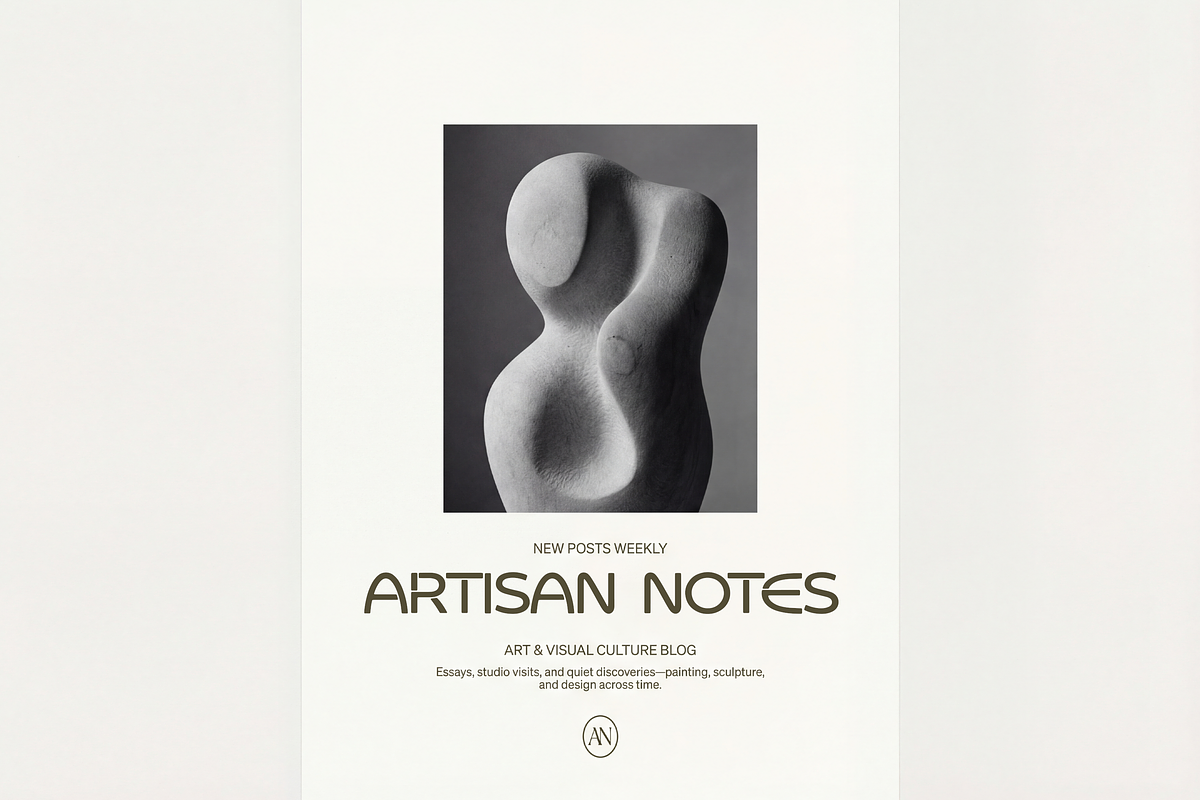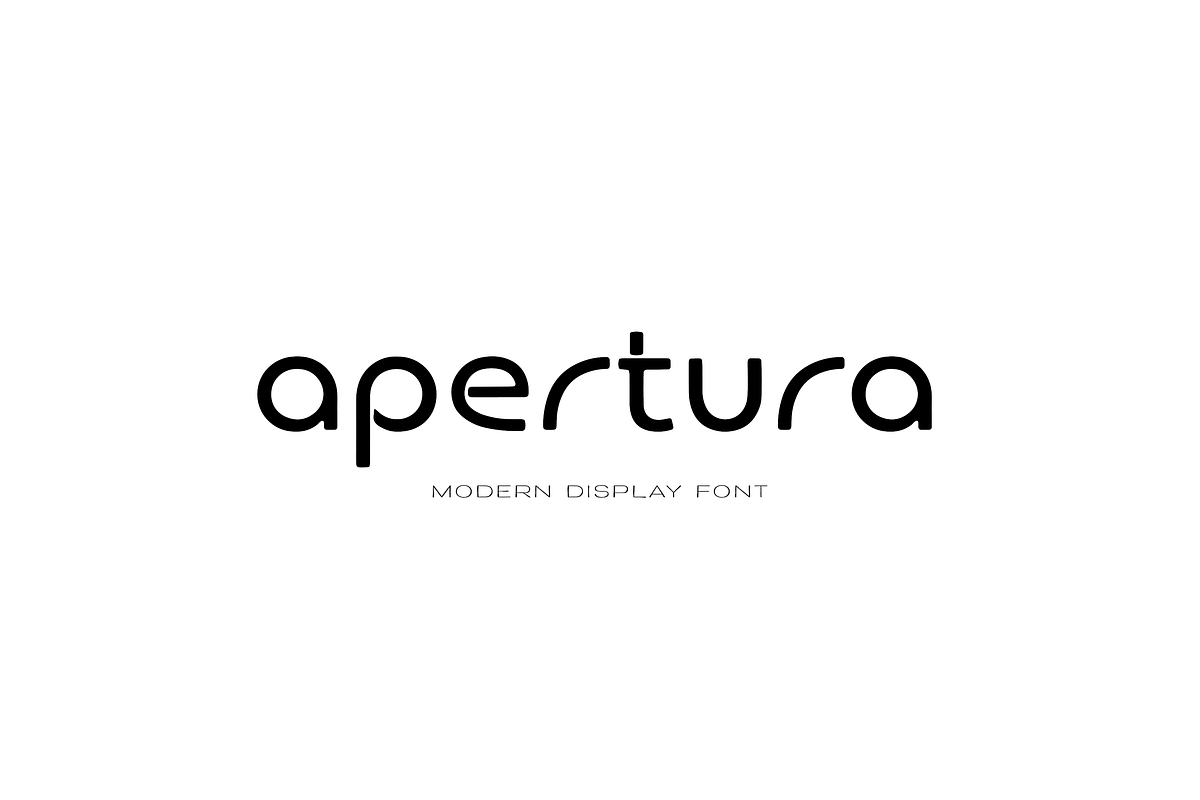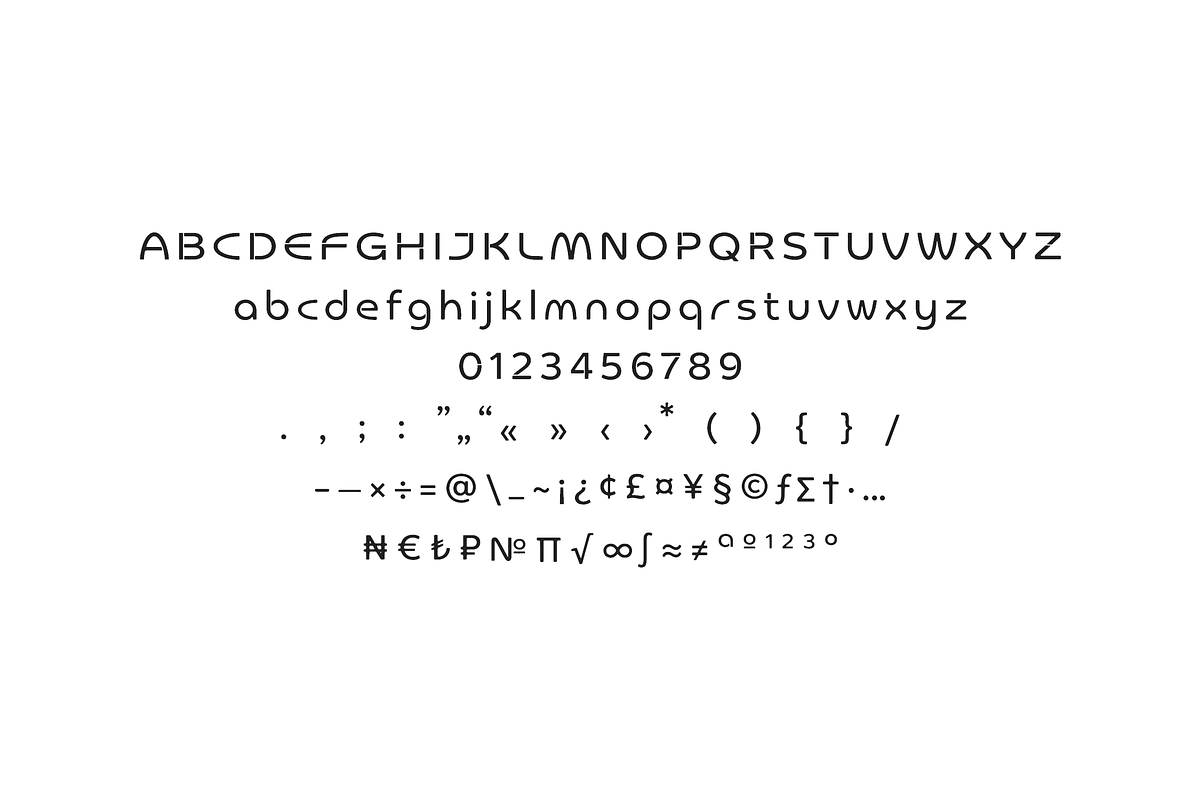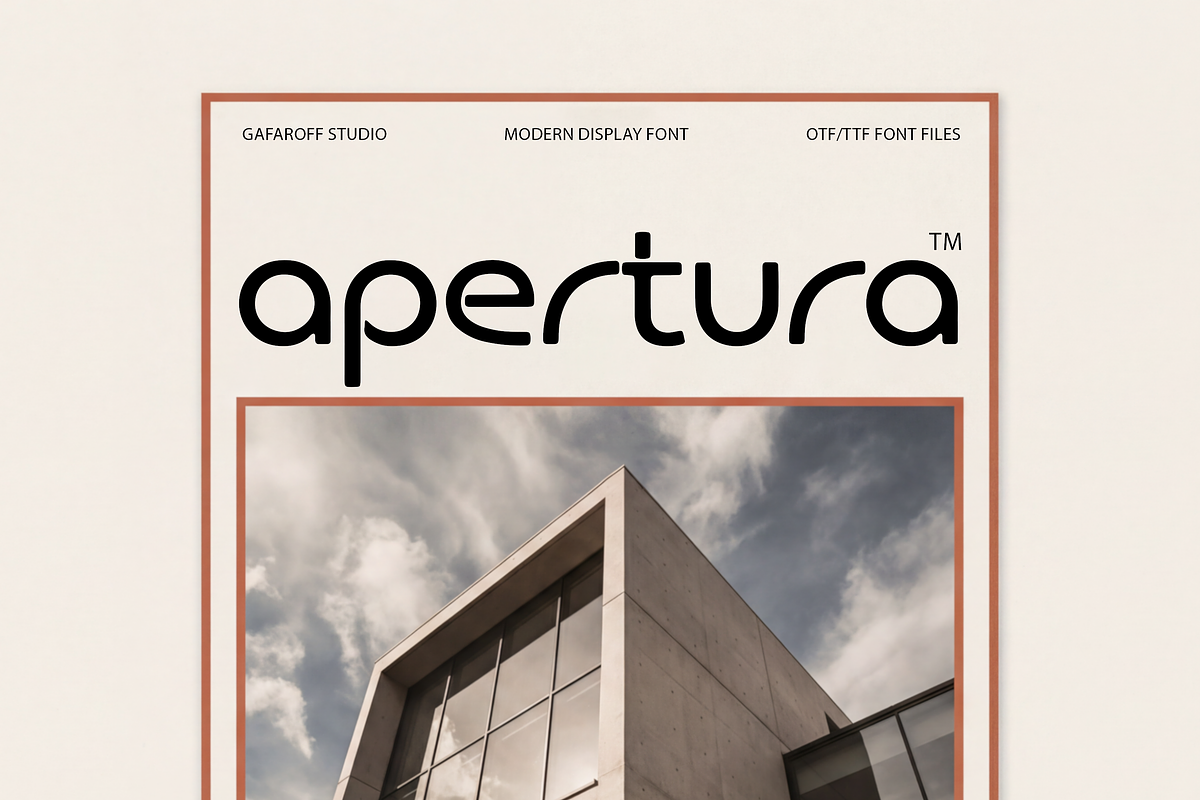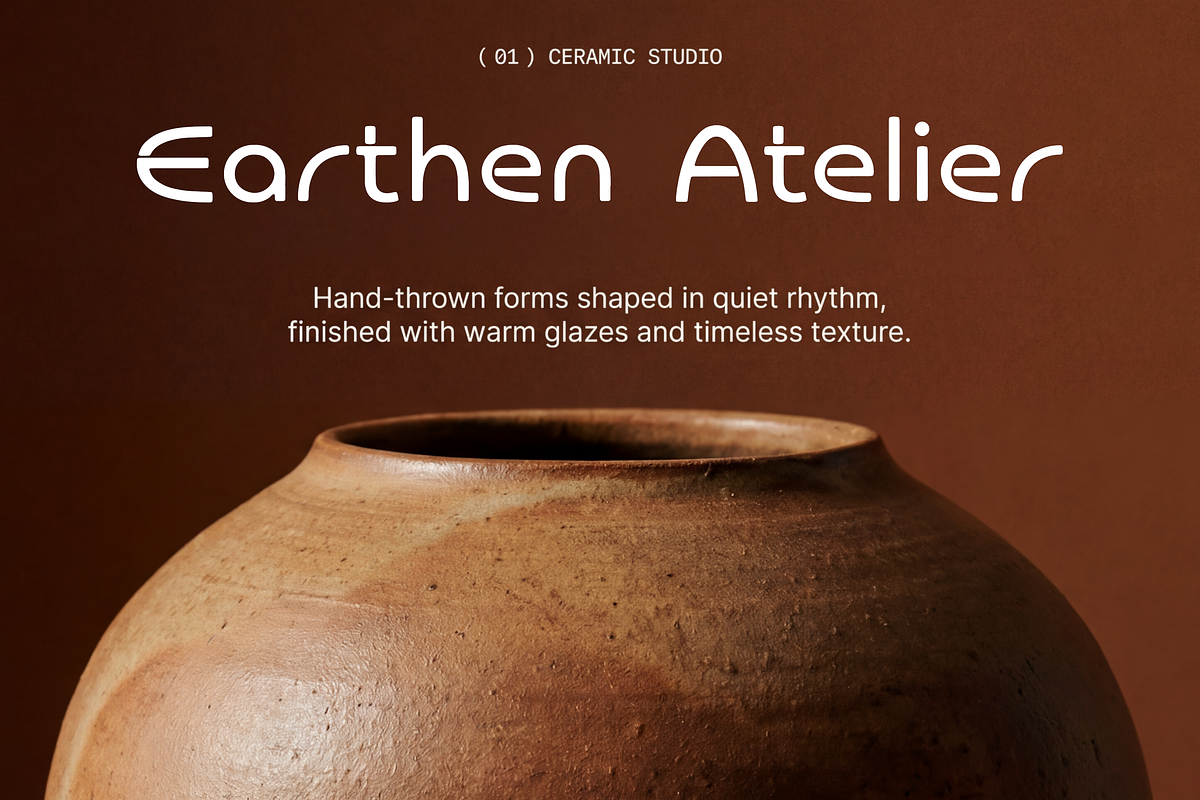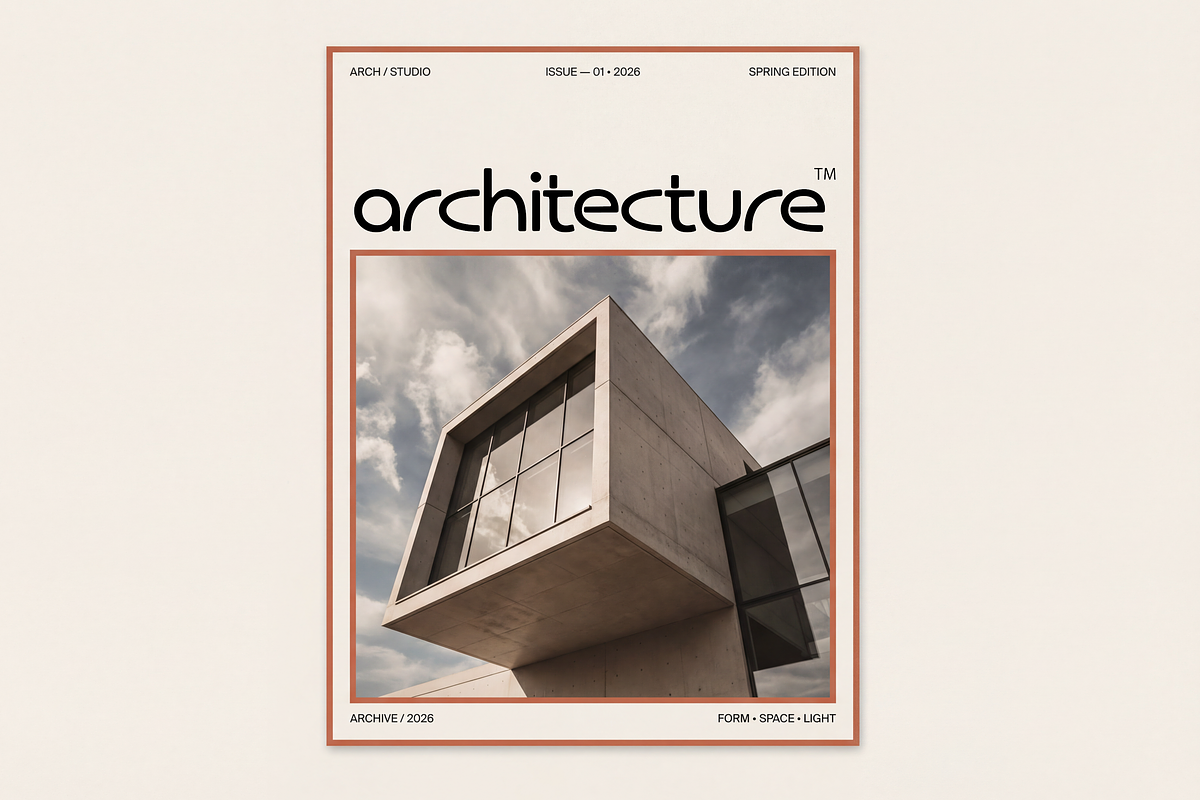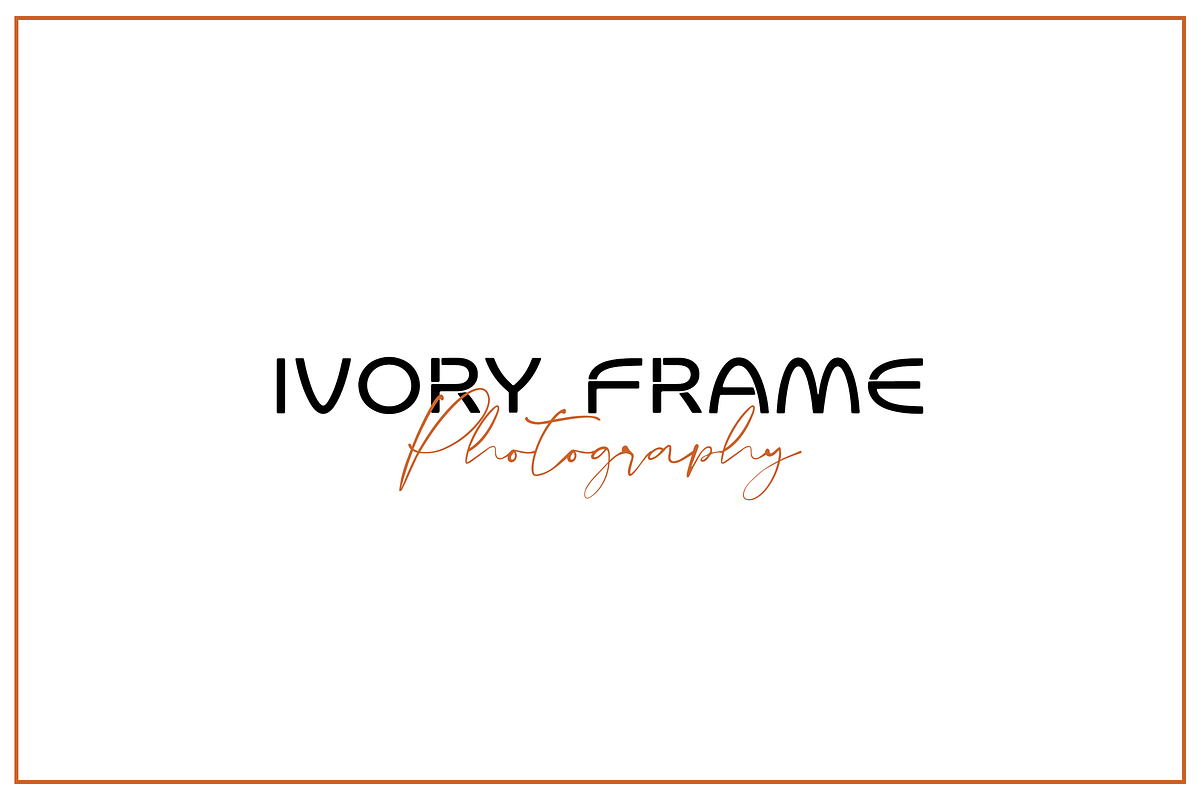
Apertura Sans
Apertura is a modern rounded display font with clean geometric shapes and soft, open curves. Its minimal, futuristic vibe makes it perfect for bold wordmarks, sleek branding, and standout headlines — from tech visuals to contemporary fashion layouts.
Modern geometric, rounded style
Minimal & futuristic feel
Great readability in large sizes
Clean shapes for strong logo work